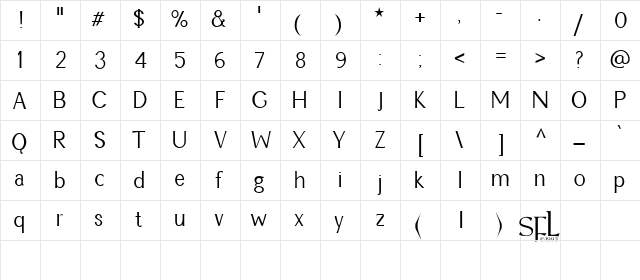
Ascelon!" Regular
Design Context for Ascelon!" Typeface
Ascelon!" is a composed and adaptable typeface that performs quietly and consistently across a wide range of design contexts.
Pro Tip: Pair Ascelon!" with a font of contrasting weight or personality to build a more expressive typographic hierarchy.